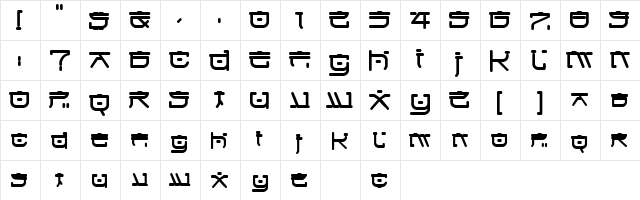
IttoRound Regular
Design Context for IttoRound Typeface
IttoRound softens its letterforms with rounded terminals, giving it an approachable, friendly quality that works well in consumer-facing and digital contexts.
A natural fit for tech startups, health and wellness brands, children's products, and friendly consumer apps.
Font Pairing: Pairs well with a rounded or humanist sans for body copy, maintaining the friendly tone without relying on IttoRound to carry extended reading.
Pro Tip: Pair IttoRound with a geometric sans for a balanced system — the rounded softness works as a warm counterpoint to harder-edged companions.